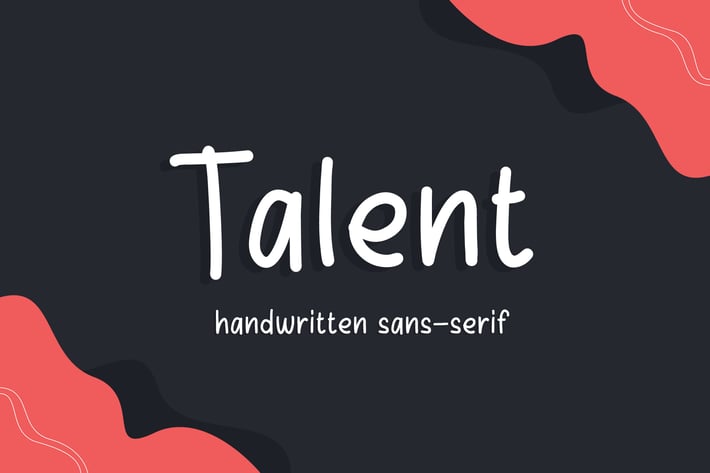
Talent - Minimalist Handwritten Font
Talent is a tall sans serif font. It has modern and clean looks.
Talent can be used in any works such book content, book title, children book, story book, advertisement, social media content, logo and many more.